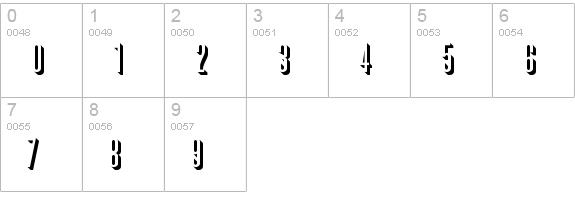
GraphikShadow Font Details
GraphikShadow is a modern and stylish font that adds a touch of sophistication to any design project. Its sleek lines and contemporary feel make it perfect for branding, advertising, and various creative endeavors. The unique shadow effect adds depth and dimension, making your text stand out on any background. Best of all, GraphikShadow is available for free download at FontsMarket.com. This means you can easily access this eye-catching font and incorporate it into your projects without any cost. Whether you're a professional designer or a hobbyist, GraphikShadow offers a versatile and elegant option for your typography needs. Download it today and elevate your designs with this striking typeface.